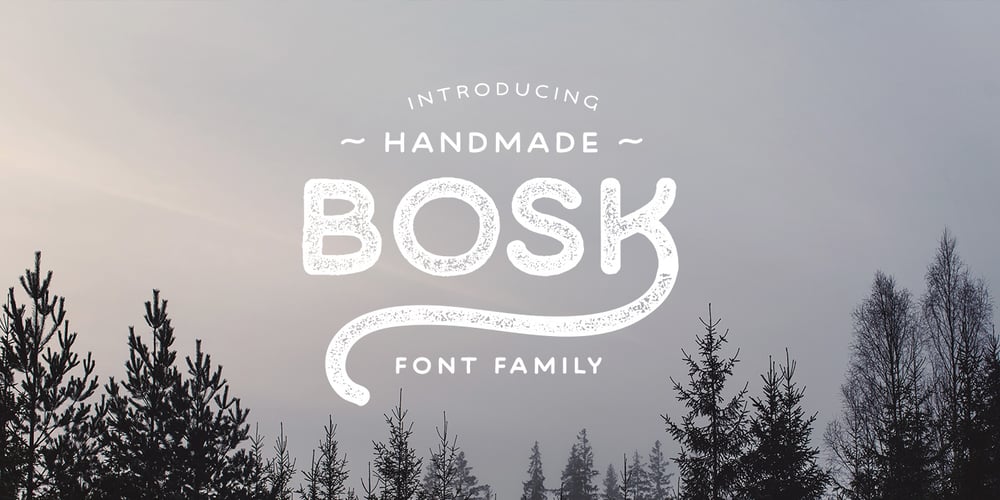
Bosk Hand
Bosk Hand font
Bosk Hand Font Family was designed by Andrew Footit and published by Andrew Footit. Bosk Hand contains 8 styles and family package options. Bosk Hand is a vintage inspired handmade display font family that consists of 4 fonts and 4 font elements. It has a raw and authentic look and feel about it and is great for those vintage, hand drawn typographic pieces. Use the elements to add a unique hand lettered touch to your layouts. This font family is versatile for use in desktop publications, packaging, logotypes that need that hand made authentic feel.